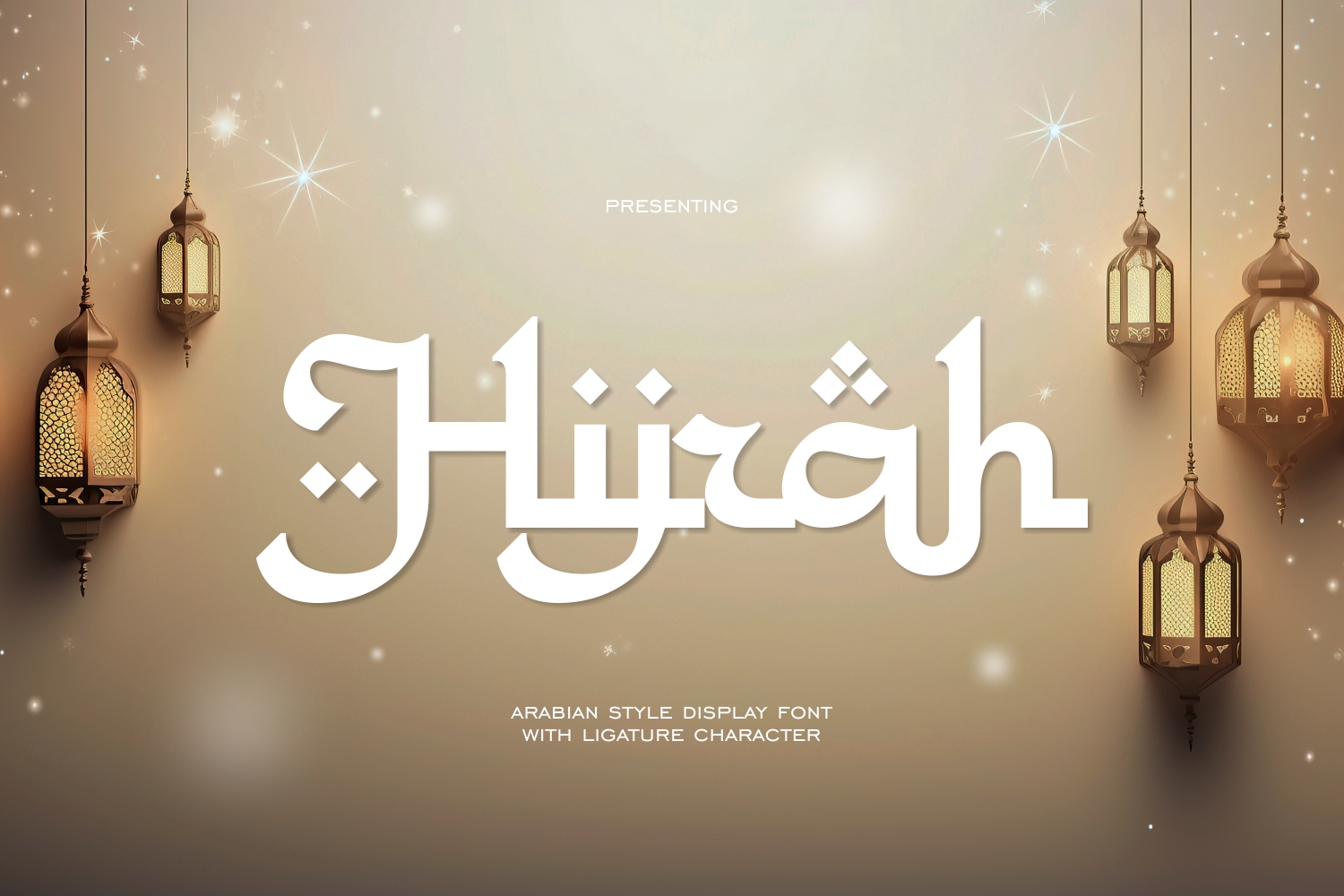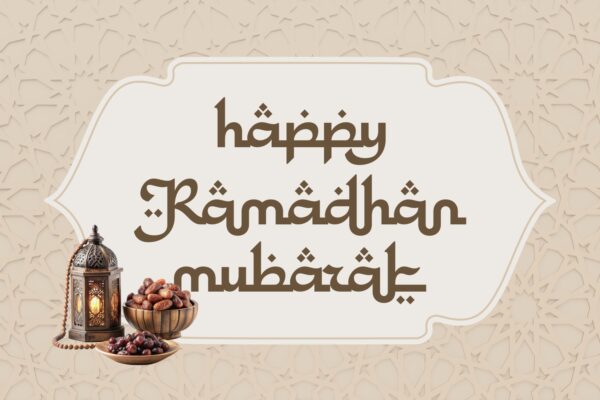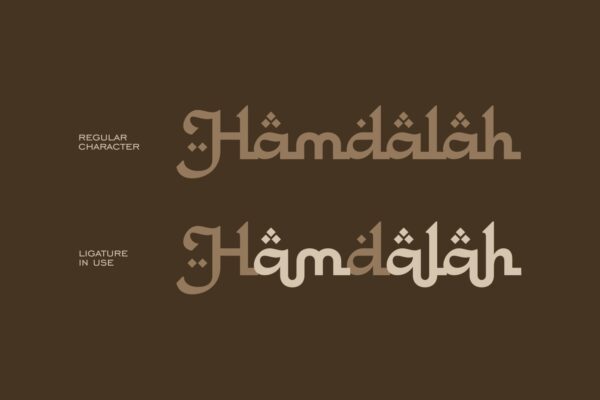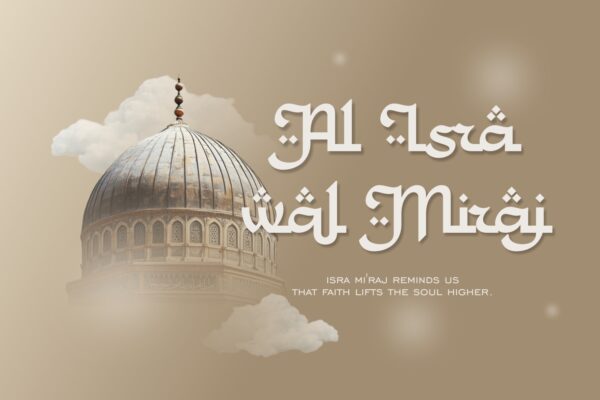
Hijrah is an Arabian-style display font that combines bold geometry with traditional calligraphic influence. Its unique ligature system brings a sophisticated rhythm to every composition, making it stand out in cultural and festive designs. With its structured yet decorative strokes, Hijrah conveys both strength and elegance, ideal for projects that aim to balance heritage with modernity.
This font is perfect for Ramadan greetings, Islamic event posters, packaging, and editorial projects with a Middle Eastern flair. The ligature characters add creative flexibility, ensuring that your typography feels authentic and expressive. Whether used in headlines, branding, or invitations, Hijrah delivers a timeless and distinctive visual identity.
Hijrah